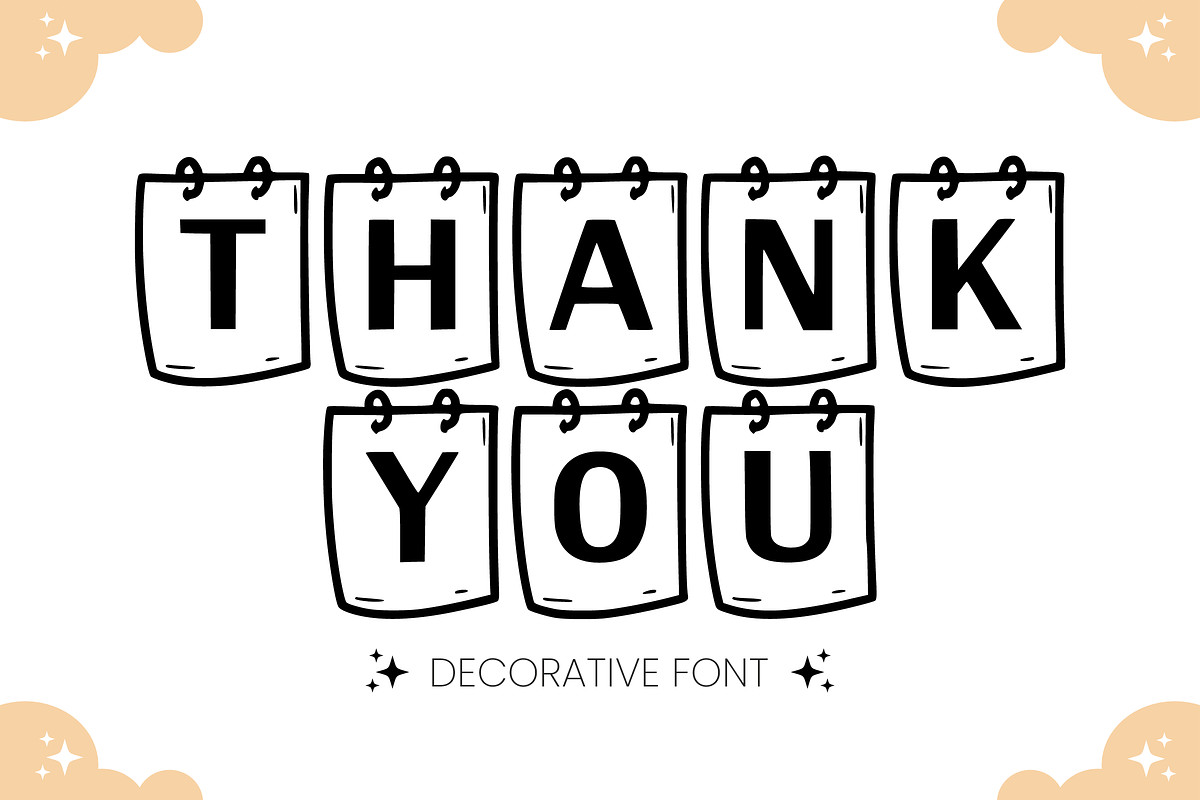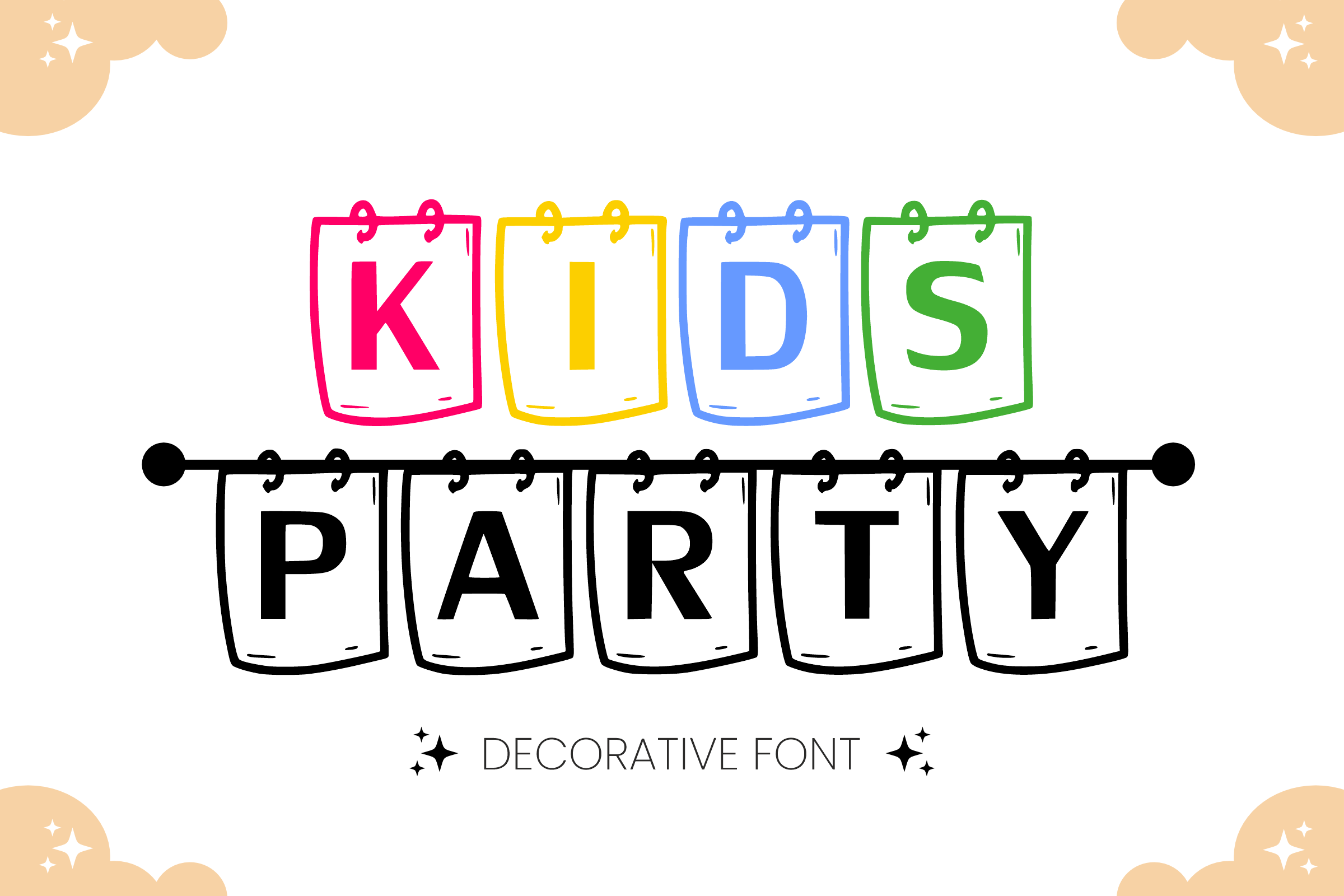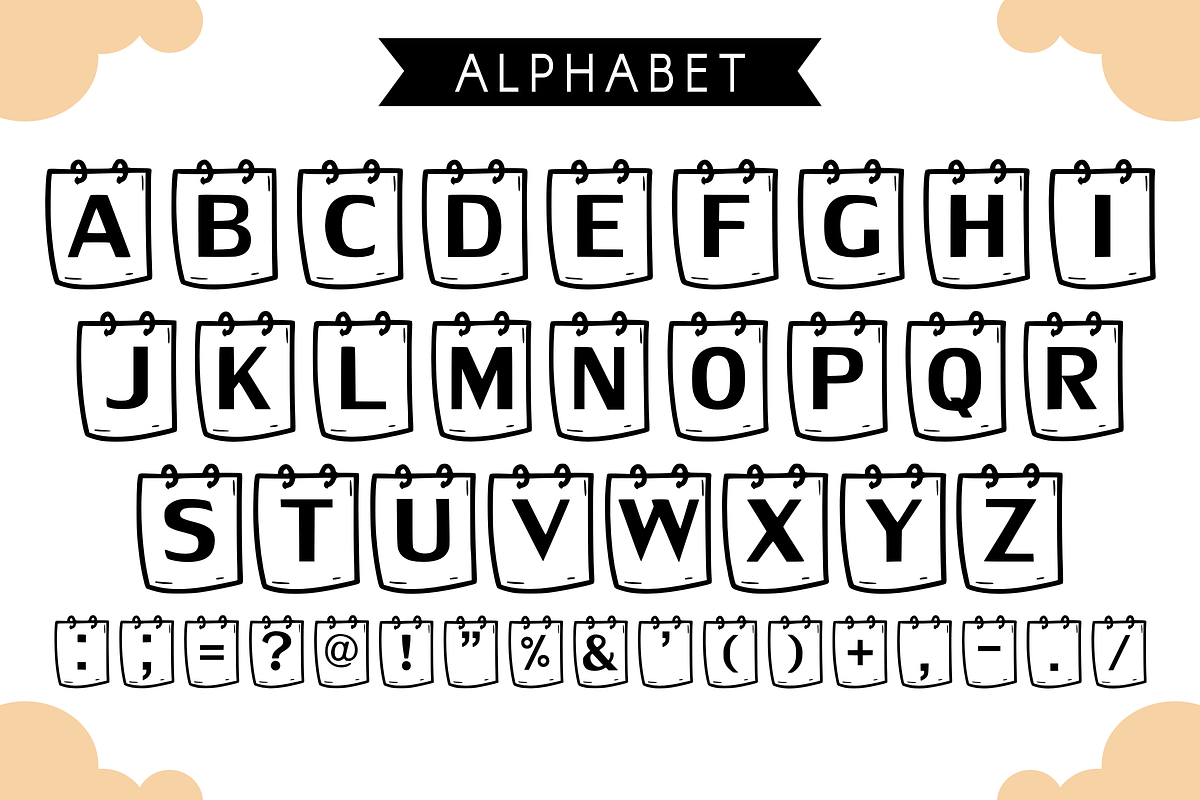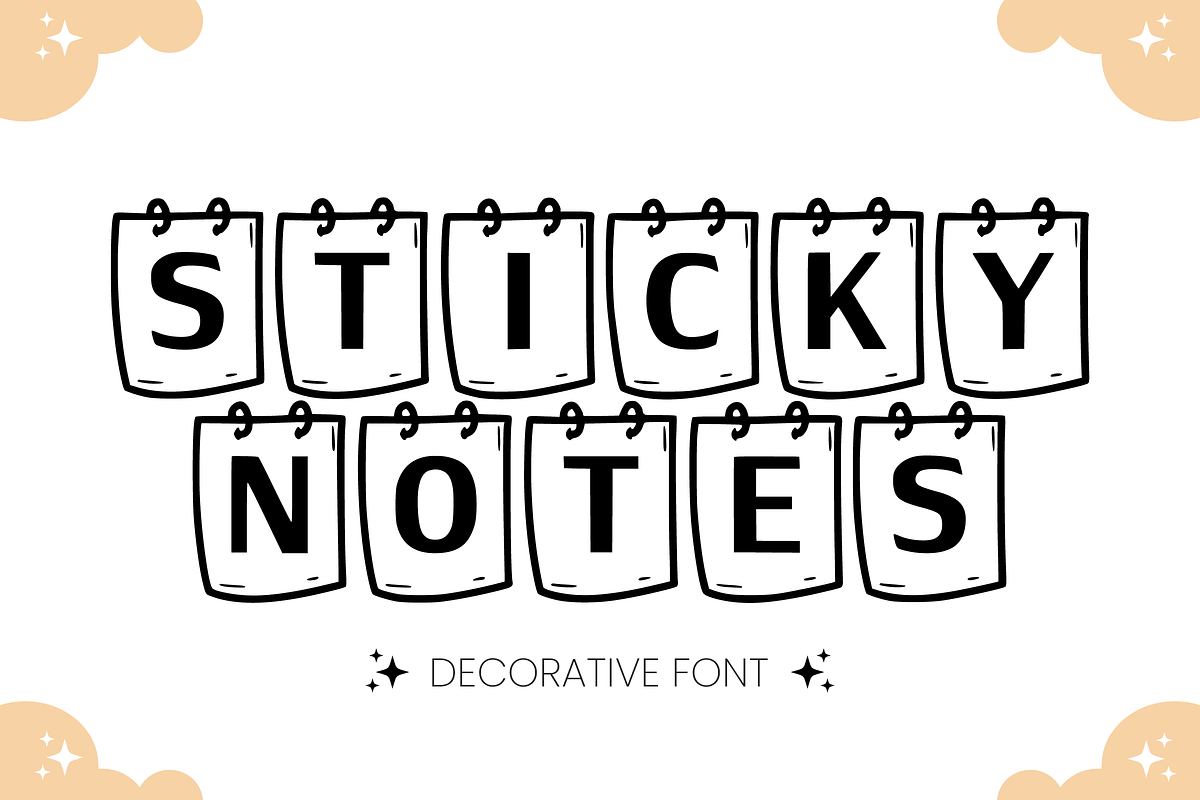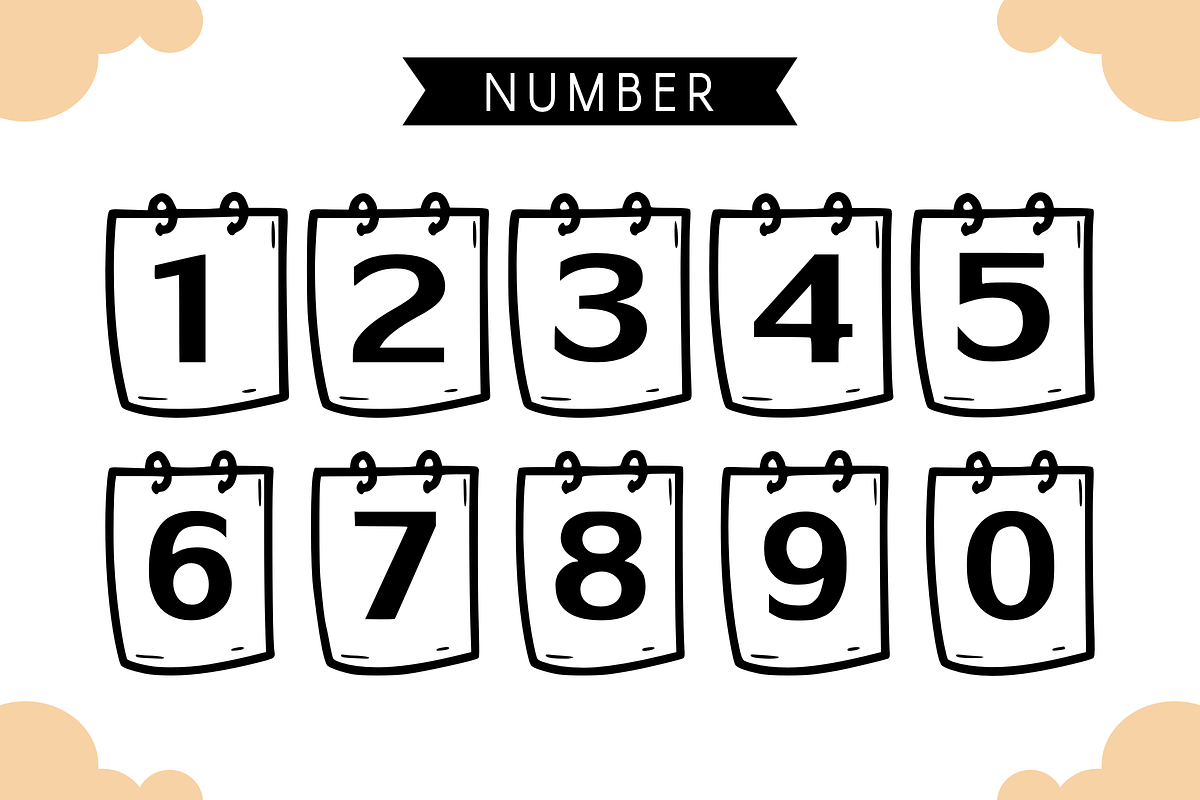
Kids Party - Child Font Type
Welcome to the delightful world of “Kids Party” – a font designed to spark joy and creativity. Carefully crafted, each letter is encapsulated in an adorable paper icon, exuding an aura of fun and whimsy. Whether you’re creating charming greeting cards, memorable birthday decorations, personalized sublimation mugs, or vibrant t-shirts, “Kids Party” is your perfect companion. It also breathes life into invitations and makes any kids party a touch more magical. This font is all about adding an extra sprinkle of happiness to anything you need.